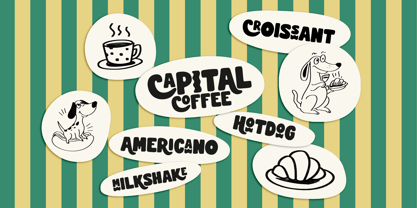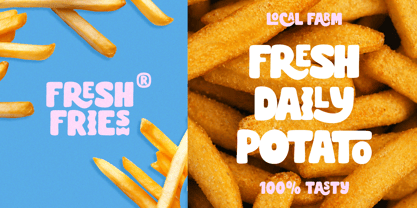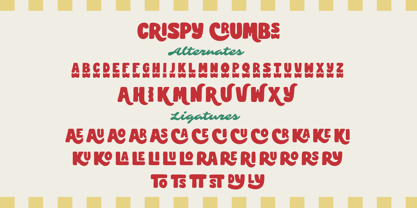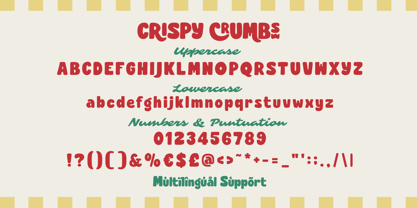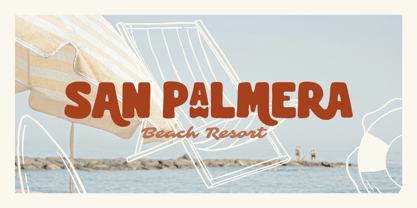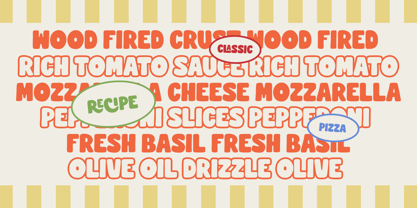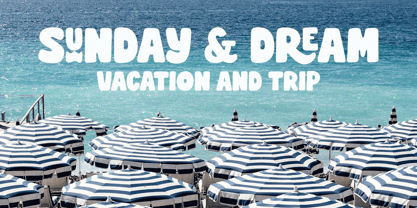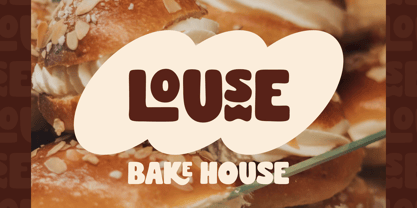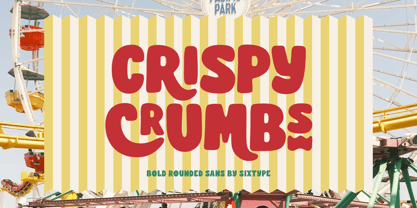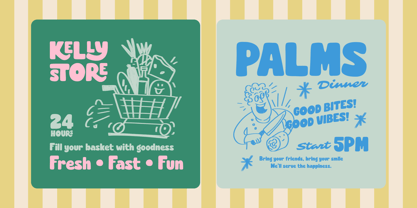
Crispy Crumbs
by Sixtype Foundry
Crispy Crumbs is a playful retro display font inspired by vintage snack packaging, diner signage, and cheerful mid-century typography. This bold typeface features chunky rounded shapes, soft curves, and quirky character details, delivering a fun and nostalgic personality that is perfect for food branding, café logos, restaurant menus, packaging design, kids' projects, posters, stickers, social media graphics, and retro-themed merchandise. With its expressive letterforms and handcrafted feel, Crispy Crumbs creates warm, approachable visuals that instantly grab attention while ensuring strong readability. This font is ideal for designers seeking to add a joyful vintage touch with modern versatility and eye-catching charm, making it a standout choice for various creative applications, including branding, editorial design, and promotional materials. Its unique features and engaging style make it a versatile option for any project that aims to evoke a sense of nostalgia and fun.